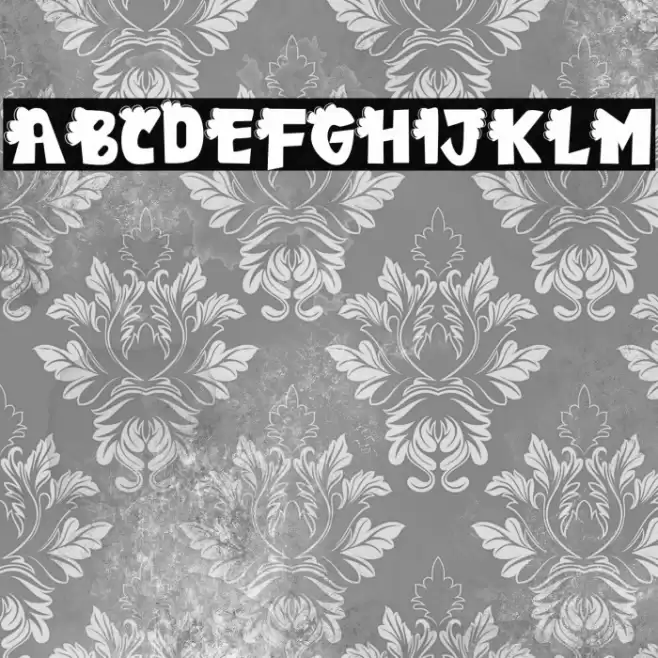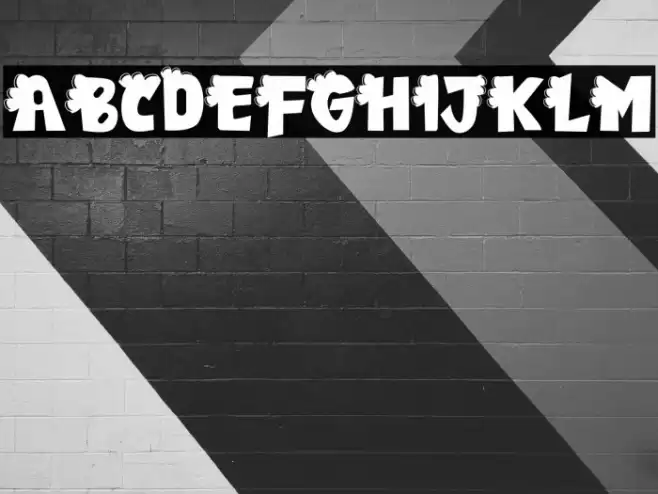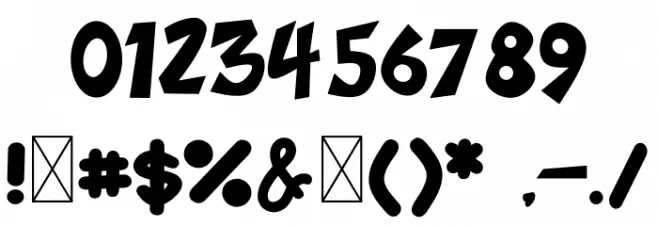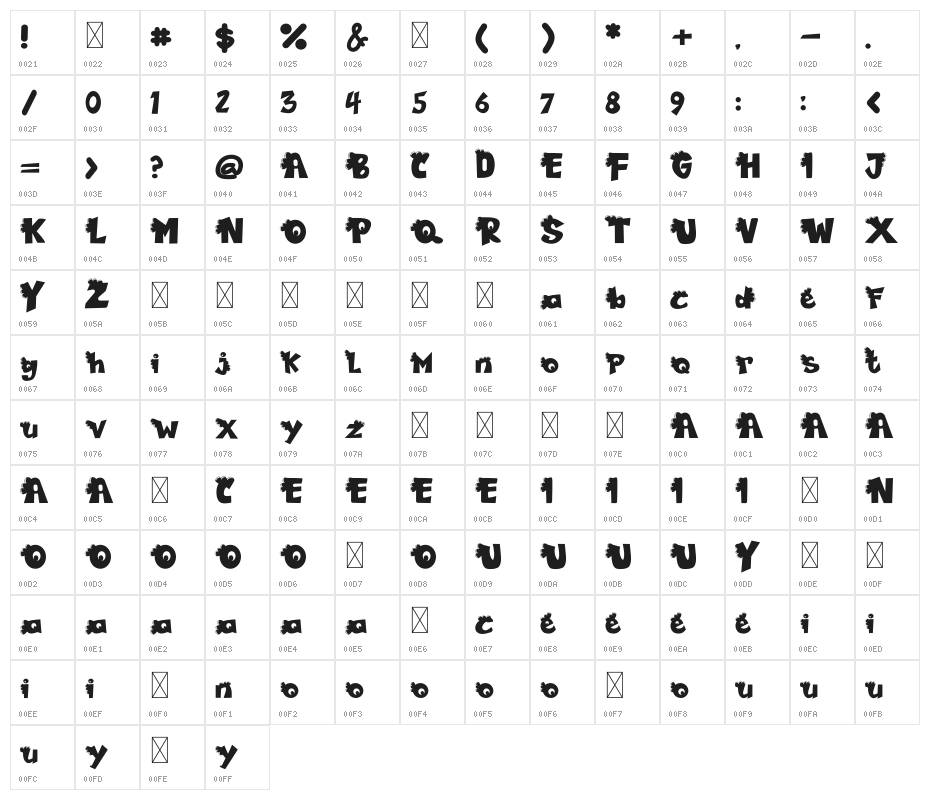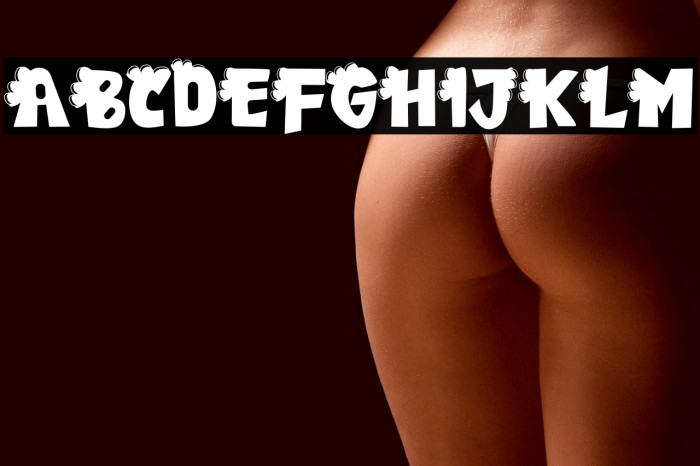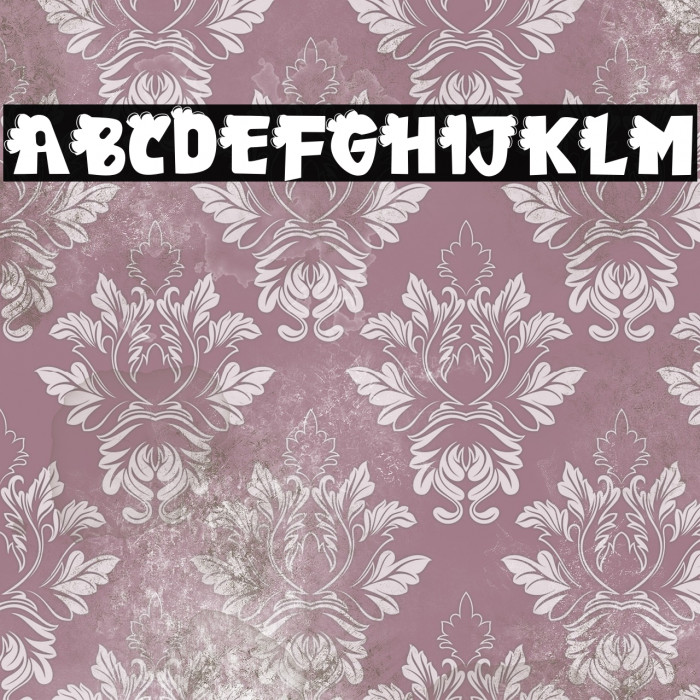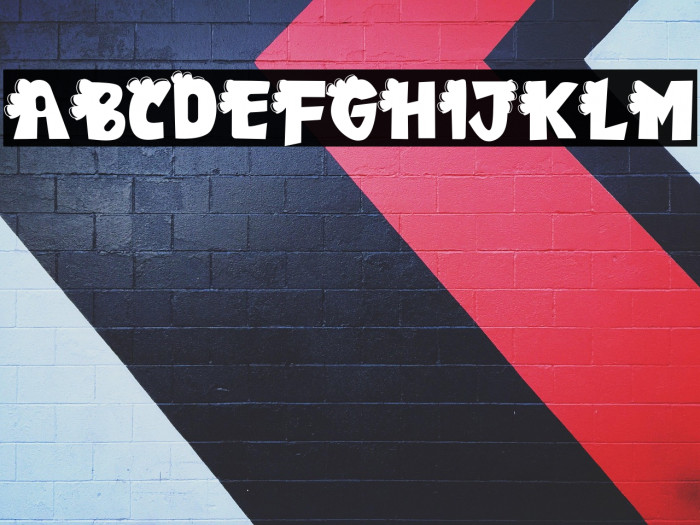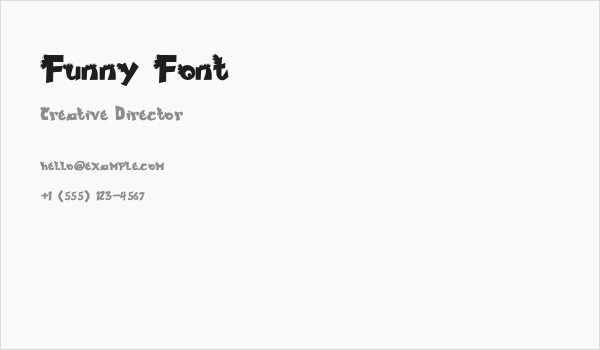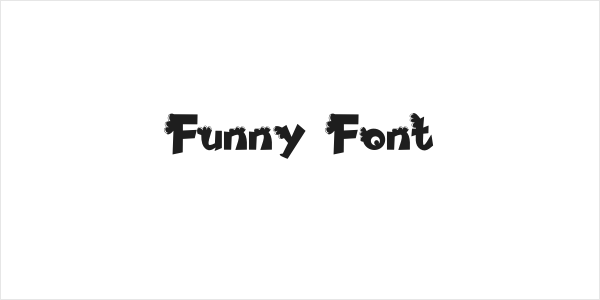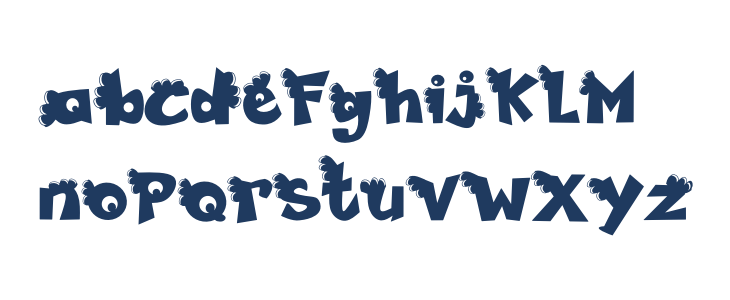
Funny Font Font
Funny Font Description
This playful and whimsical font features bold, chunky letters with unique decorative elements that resemble playful curls or waves. The characters are highly stylized, with exaggerated curves and a fun, cartoonish appearance. This font exudes a sense of joy and creativity, making it perfect for projects that require a lighthearted and engaging touch. The uppercase and lowercase letters maintain a consistent style, while the numbers and special characters are equally bold and expressive, ensuring a cohesive look across all text elements.
A playful, bold font with whimsical, decorative curls from Uncategorized fonts.
- Font: Funny Font
- Proposed Projects: Ideal for children's books, playful branding, party invitations, and comic-style graphics.
- Overall Style: Playful